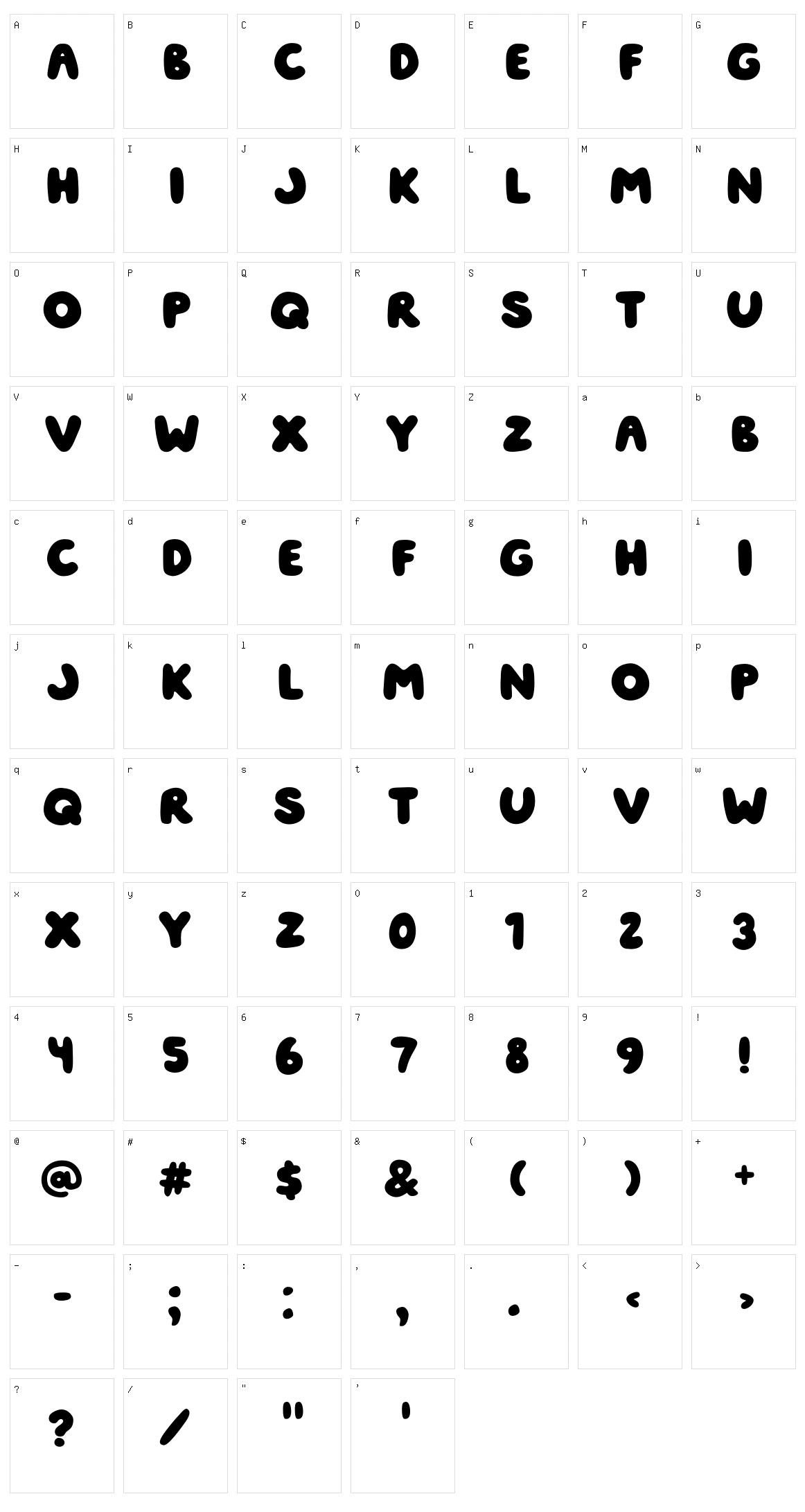
The free font Jouzu is carefully designed by Tamara Hall, showcasing a thoughtful balance of creativity and usability and falls under the Cartoon font style. When you download the ZIP file, it contains only 8.07 KB of font files, making it lightweight and quick to download. Please review the license details below to understand permitted usage and distribution rights. If license information is not available, we recommend using this font for personal projects only or contacting the author directly for commercial usage permissions.